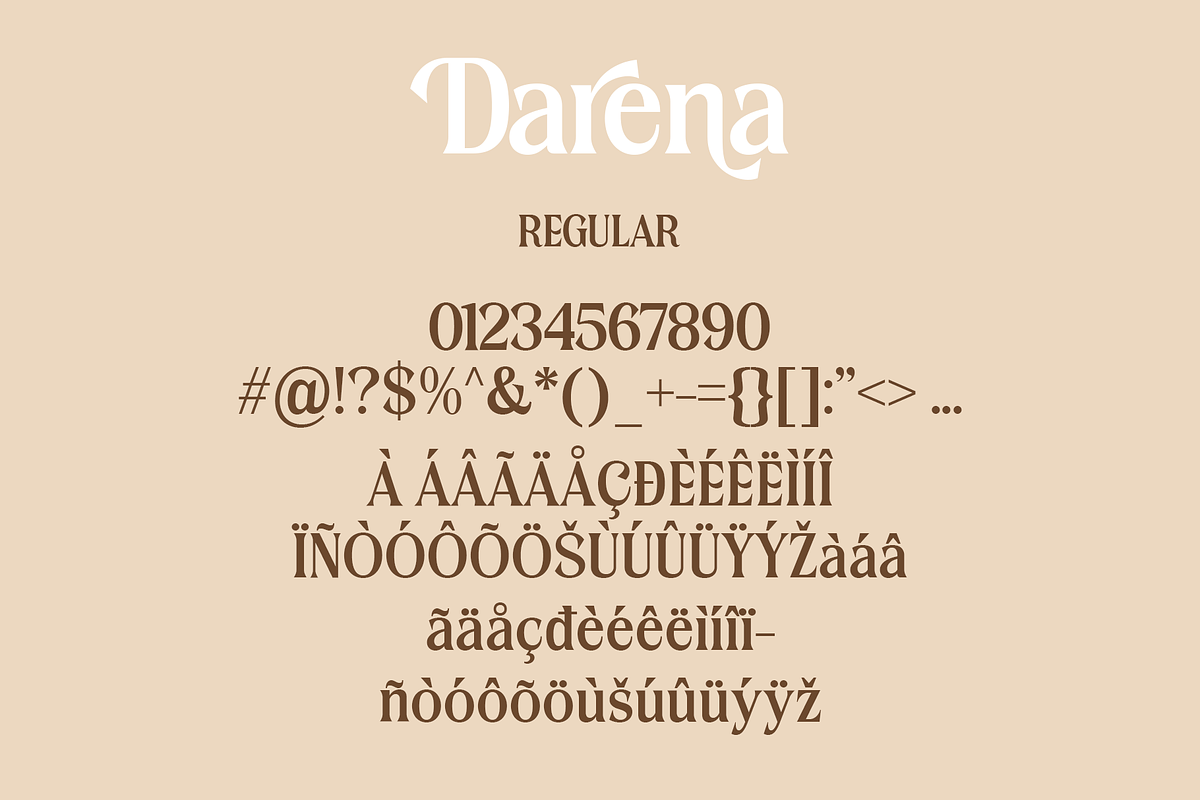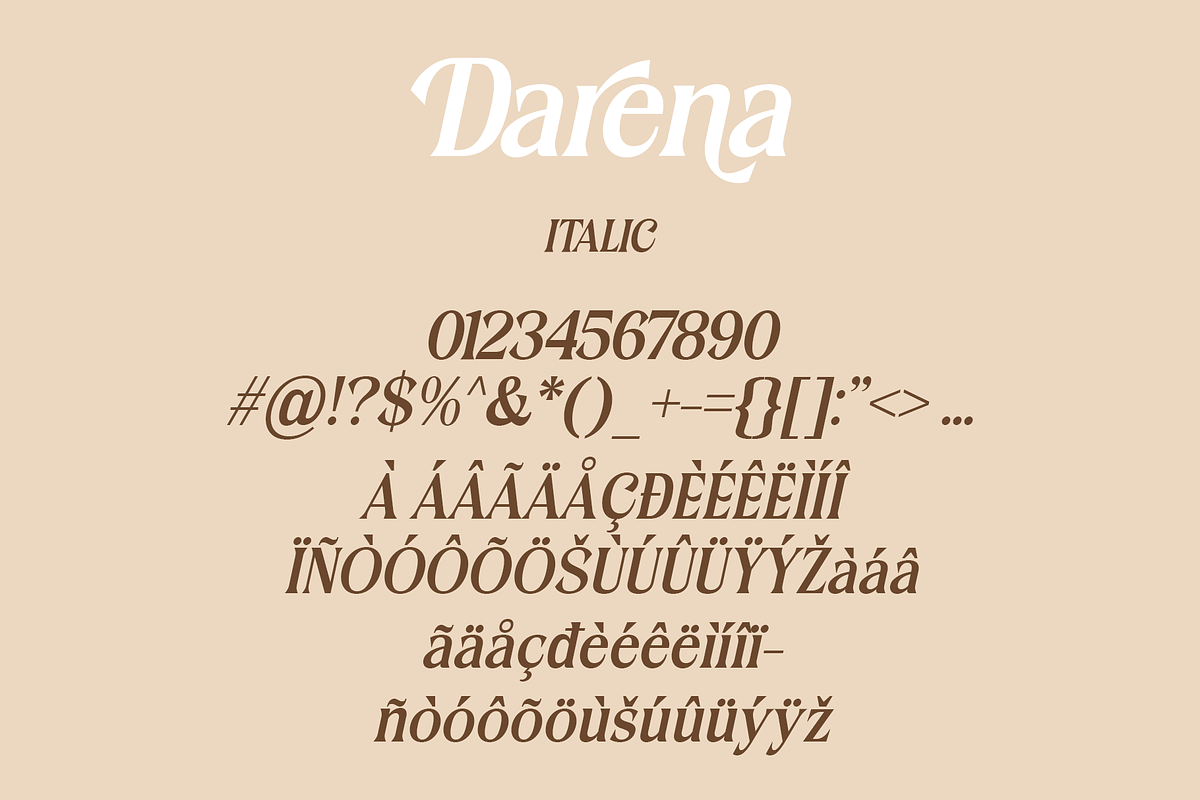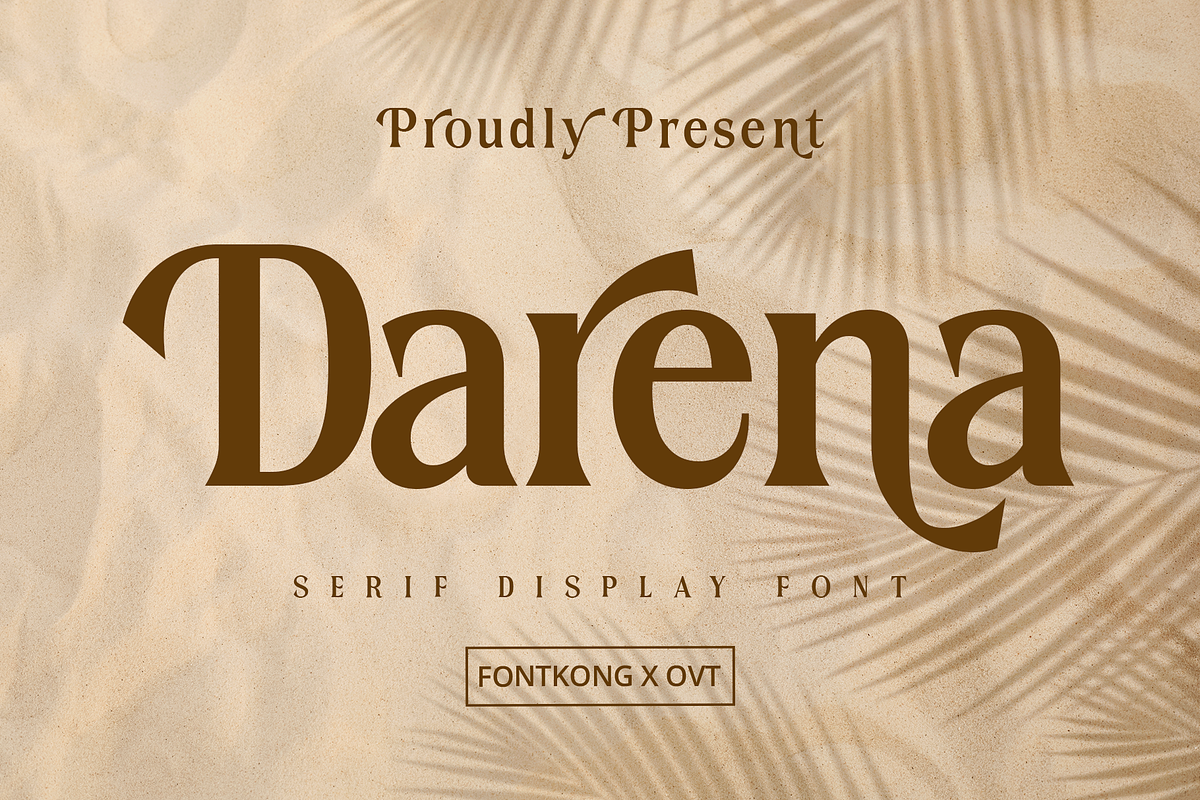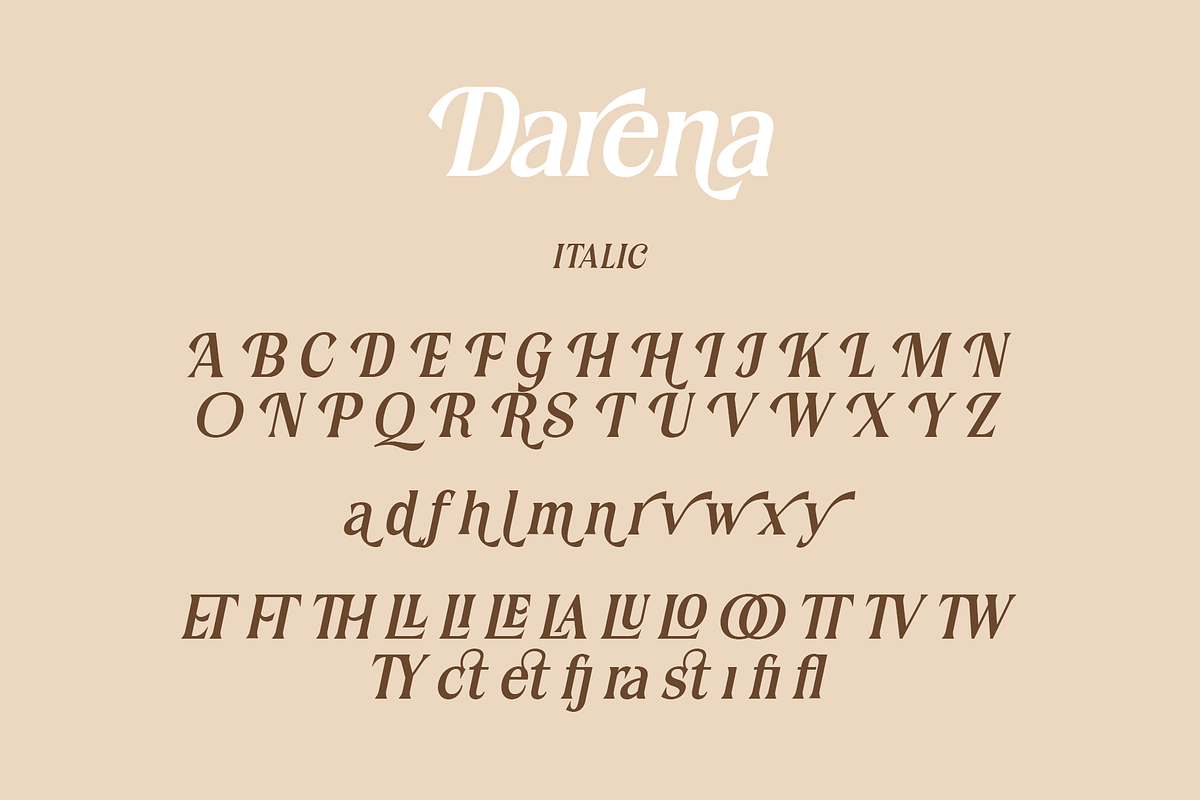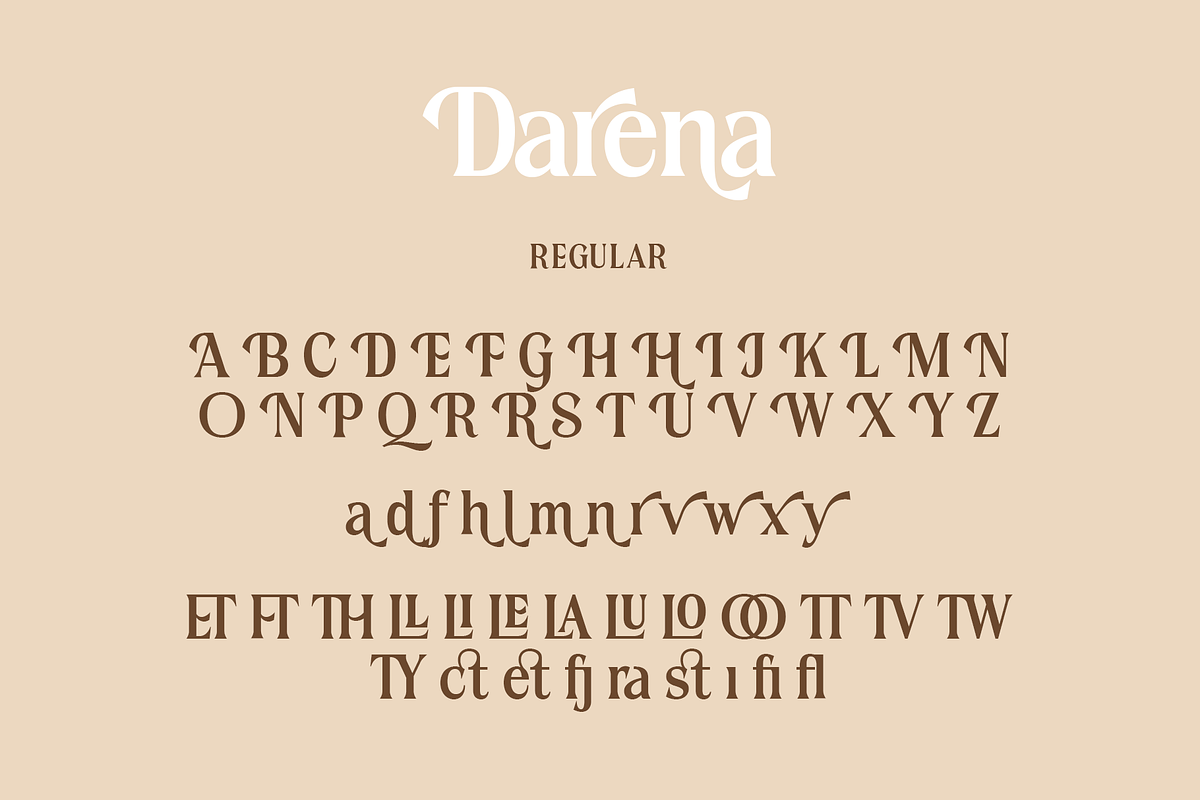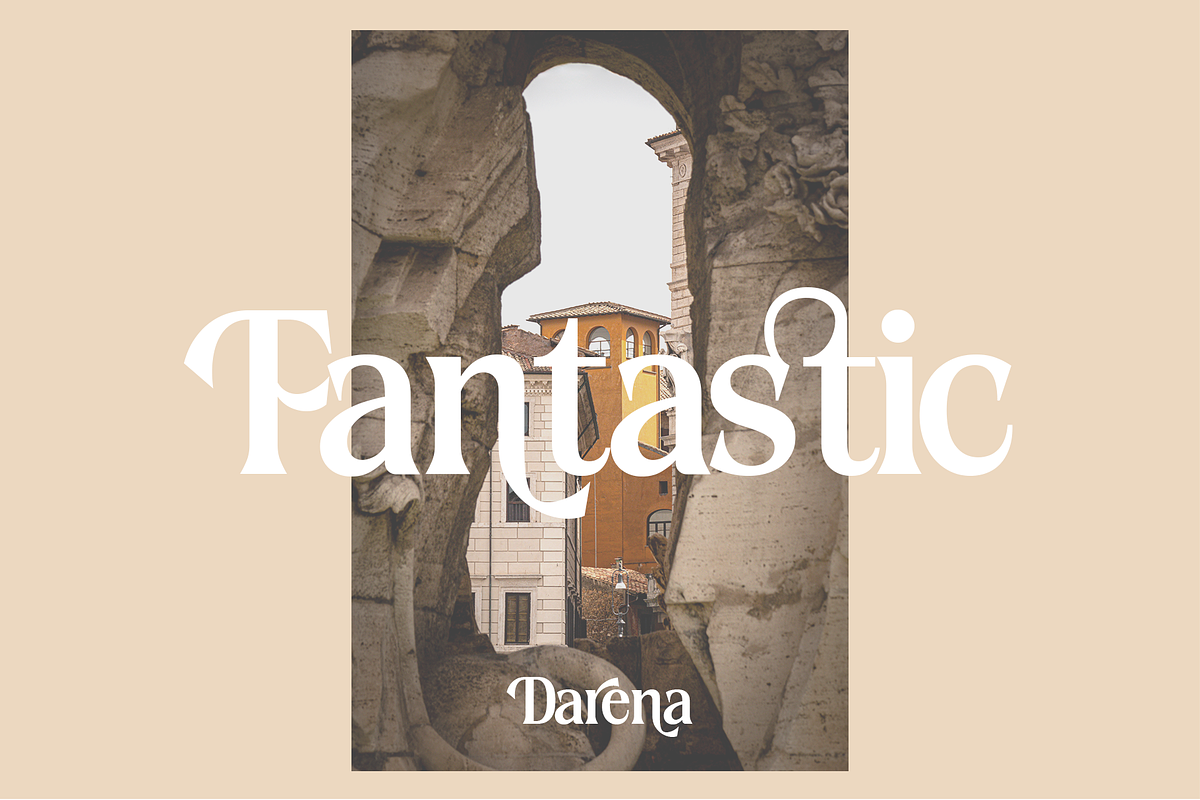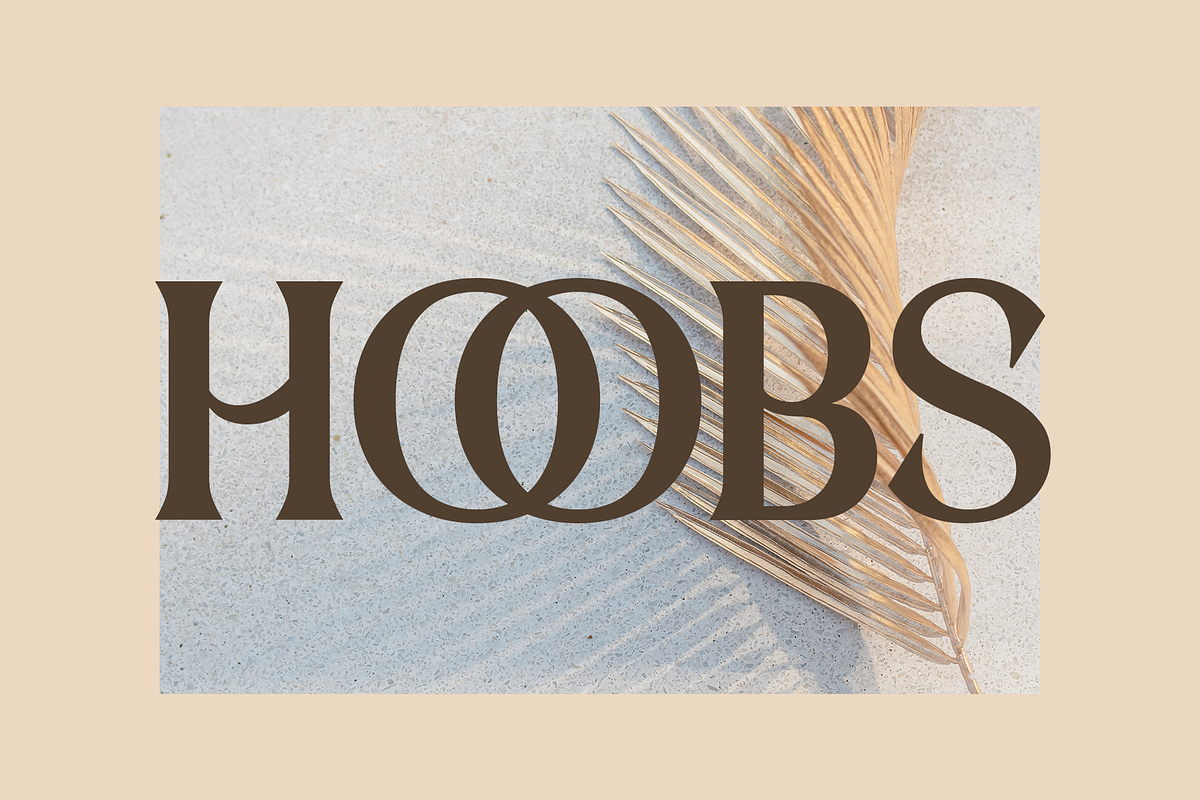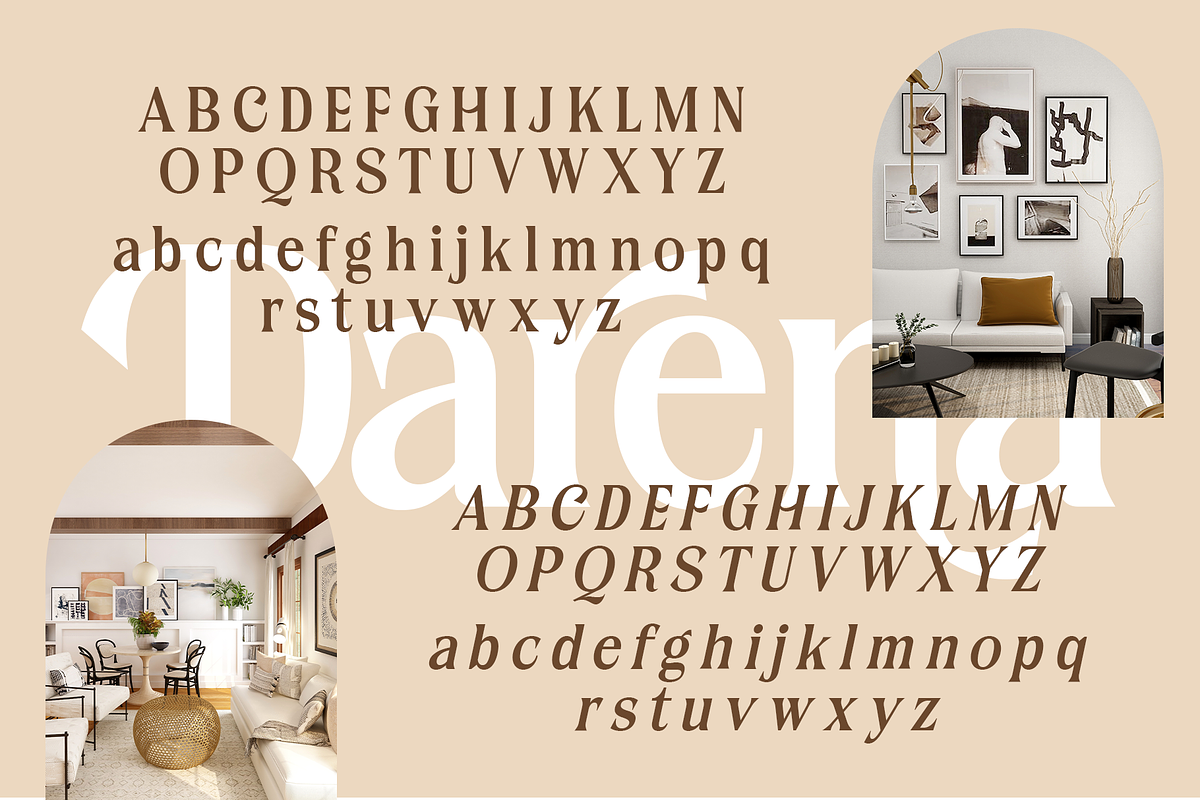
Darena - Serif Display Font
Introducing "Darena," a serif display font that embodies timeless elegance and modern sophistication. Perfect for graphic designers, branding professionals, and creatives seeking to elevate their work, Darena offers a refined and striking serif style that enhances any project.
Ideal for headlines, logos, branding materials, editorial layouts, and packaging, Darena's sharp serifs and balanced proportions provide a classic yet contemporary aesthetic. Each character is meticulously designed to ensure readability and visual appeal, making your designs both stylish and impactful.
The "Darena" font includes a complete set of uppercase and lowercase letters, numbers, punctuation marks, and special characters. This versatility ensures seamless integration into a variety of design projects, from luxurious branding to elegant editorial content.
Elevate your designs with Darena, the serif display font that combines timeless charm with modern sophistication.